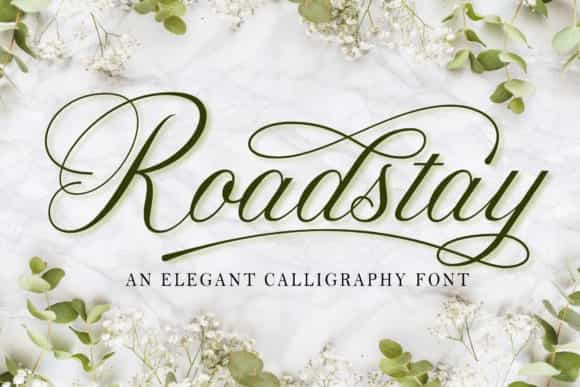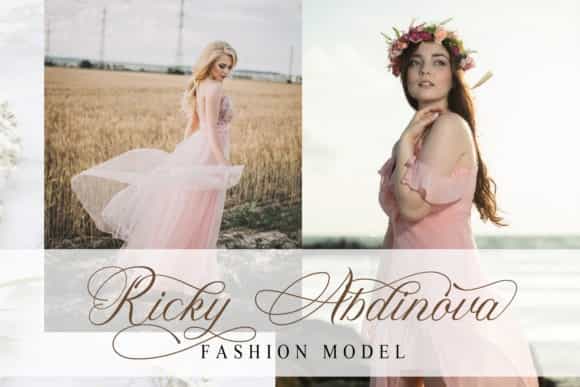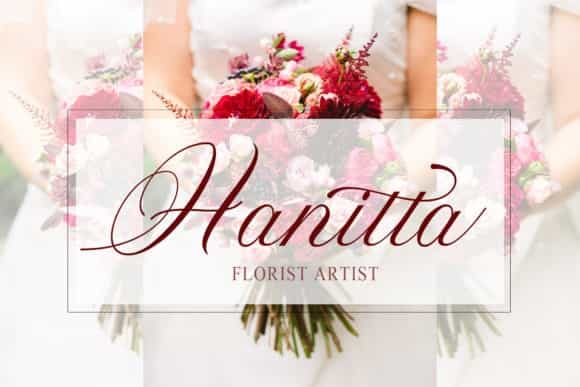
Roadstay Font is a contemporary and sophisticated calligraphy script font that has very beautiful character changes, like the classic decorative copper script with a modern twist, designed in high details to give you an elegant style.